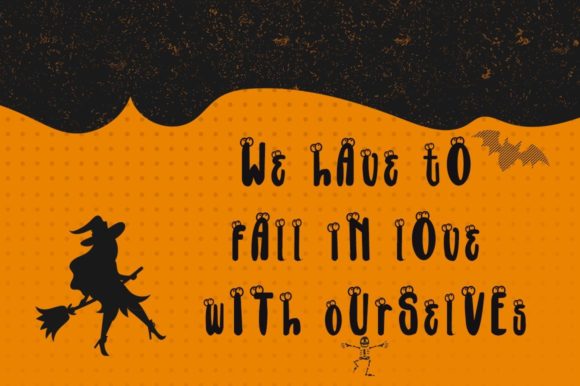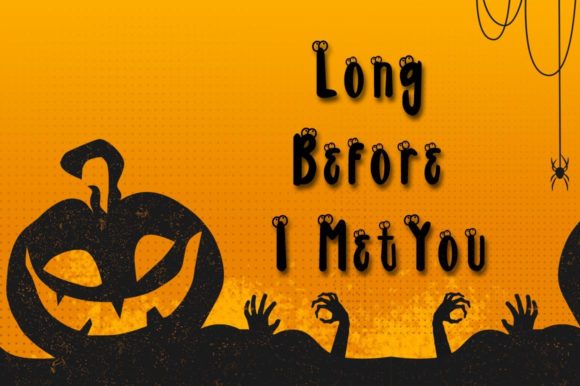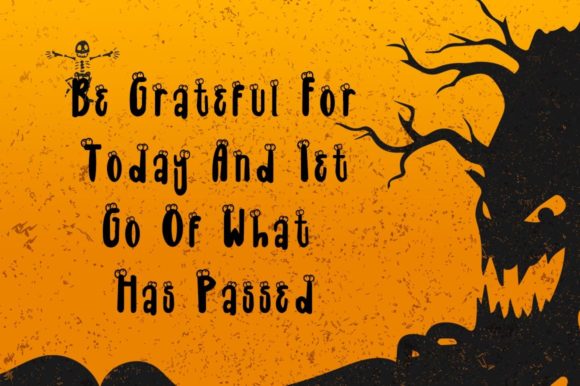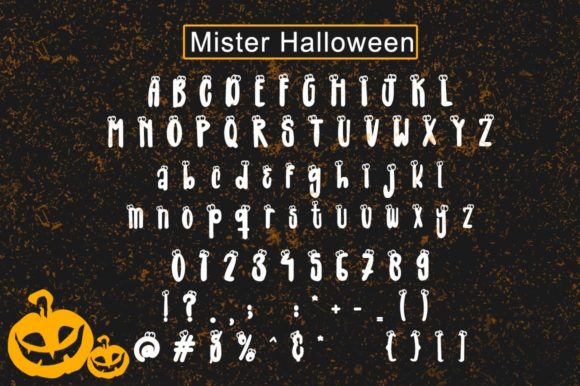
Introduction to Mister Halloween Font
Mister Halloween is a fun Halloween font.
Is exactly what you would expect to see on a poster or merchandise designed for Halloween Also is great for logo design, posters, and making statements in your designs.